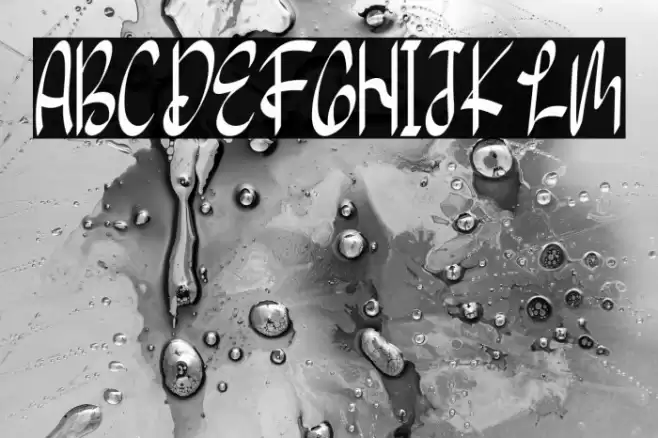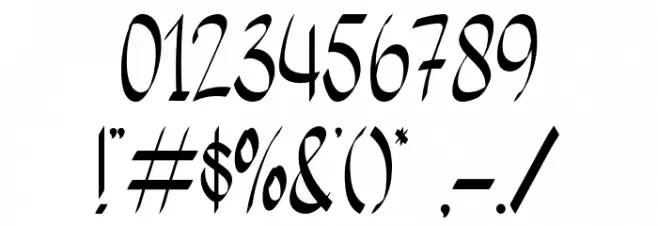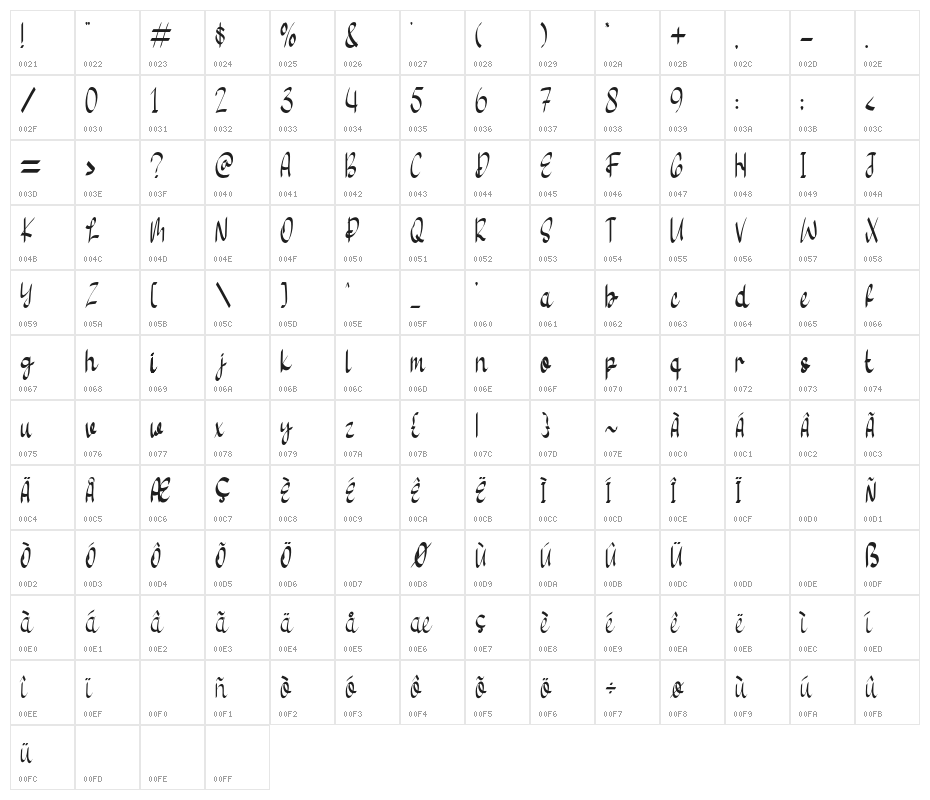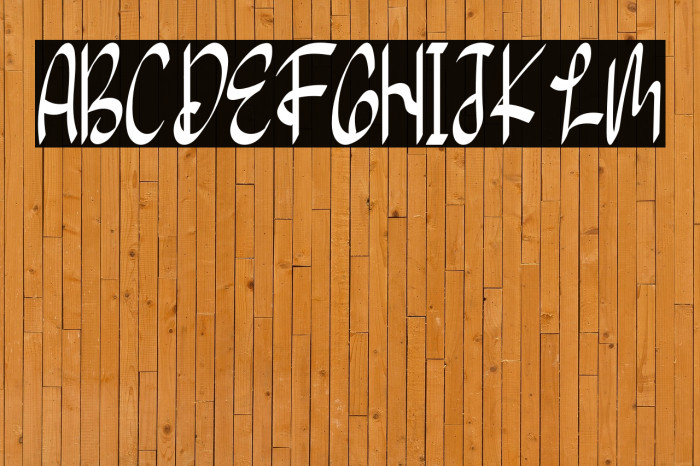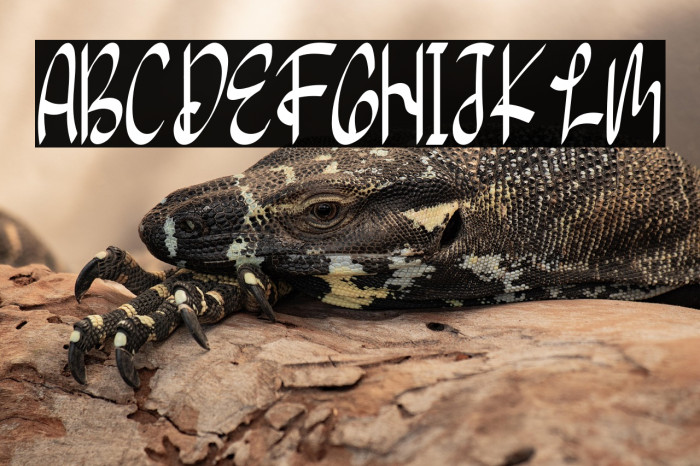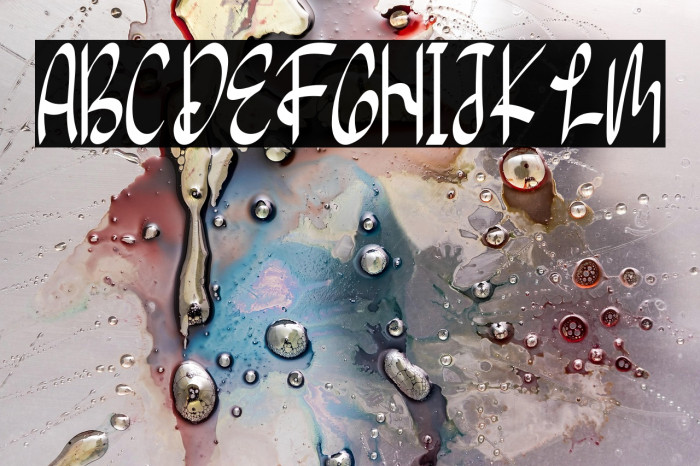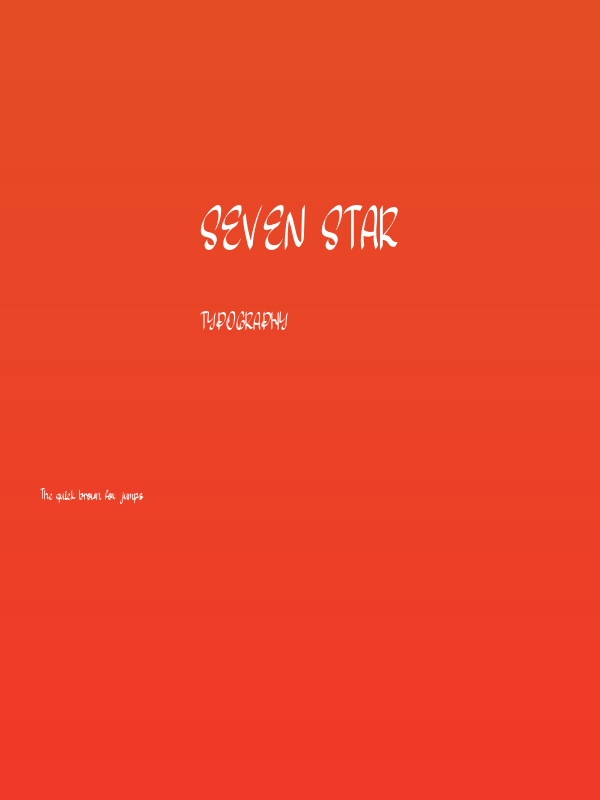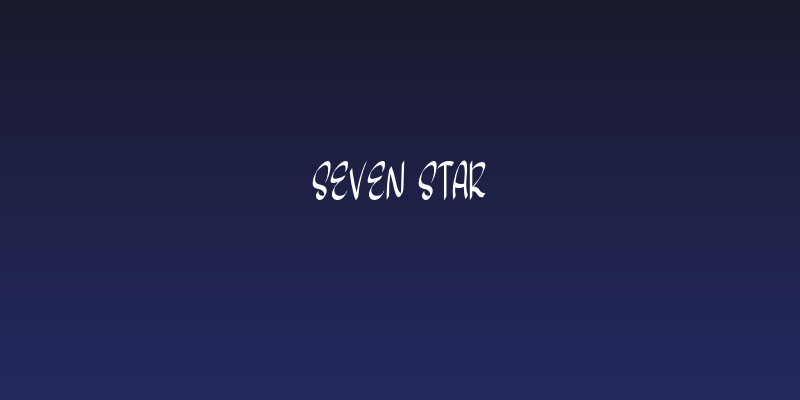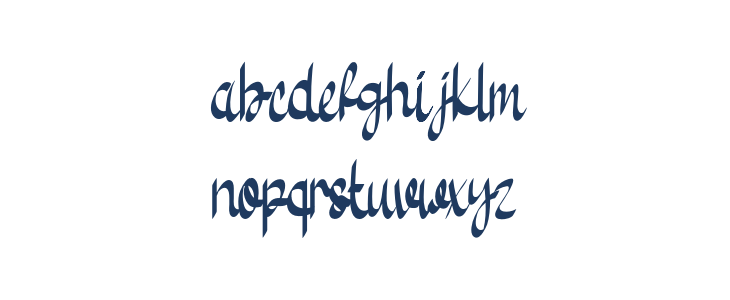
Seven Star Font
Seven Star Description
This font features a dynamic and flowing script style, characterized by its elegant and cursive letterforms. The uppercase letters exhibit a graceful, sweeping motion, while the lowercase letters maintain a consistent fluidity that enhances readability. The numerals are designed with a similar flair, ensuring a cohesive look across all characters. Special characters are integrated seamlessly, maintaining the font's overall aesthetic. The strokes are moderately thick, providing a balanced contrast that adds to the font's legibility and visual appeal.
A dynamic and elegant script font with flowing, cursive letterforms from Uncategorized fonts.
- Font: Seven Star
- Proposed Projects: Ideal for wedding invitations, greeting cards, branding, and logo design where a touch of elegance and sophistication is desired.
- Overall Style: Elegant
- Use Case: Logos, Invitations, Greeting Cards